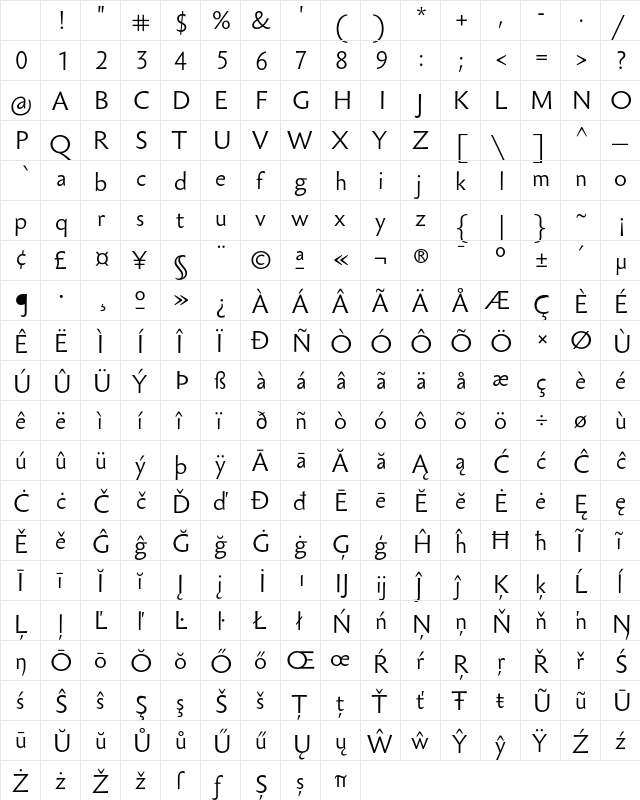
Sebastian Light Pro Regular
Foundry: Frantisek Storm, www.stormtype.com
Designer: Frantisek Storm
Design Context for Sebastian Light Pro
Sebastian Light Pro is a composed and adaptable typeface that performs quietly and consistently across a wide range of design contexts. Its slender proportions lend an understated elegance to any composition.